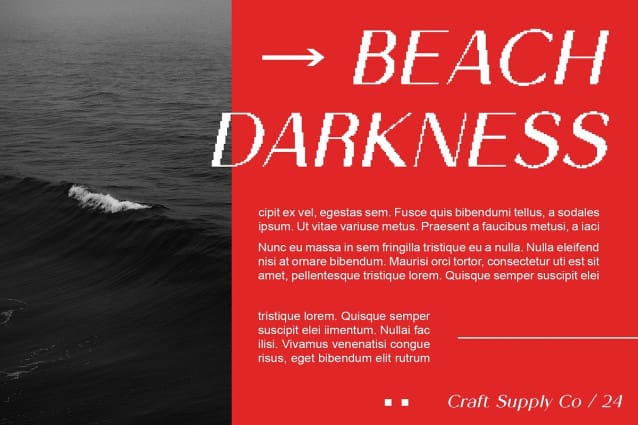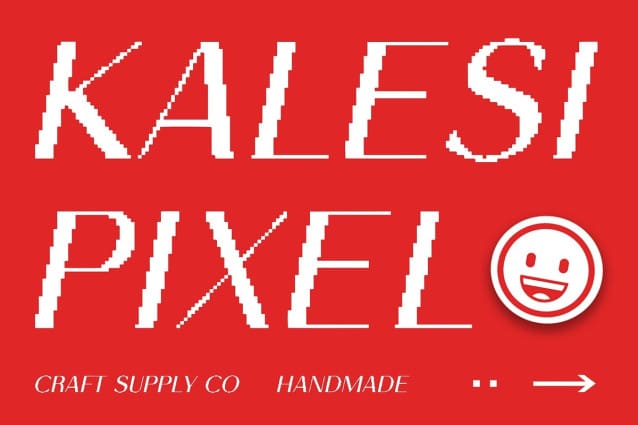
Kalesi Pixel Font
Kalesi Pixel Font is a modern sans-serif font that captures the essence of pixel aesthetics. Its crisp, clean lines combined with pixelated details give your designs a contemporary yet nostalgic feel, perfect for projects that demand attention.
Whether you’re designing a website, poster, or logo, Kalesi Pixel makes a statement. The font’s pixel vibes add a touch of playfulness to your designs, making them memorable and visually appealing.
Kalesi Pixel is tailored for display purposes, making it ideal for headlines, banners, and other attention-grabbing elements. Its modern, pixelated design ensures that your message stands out in a crowded digital space.
Despite its pixel-inspired details, this font remains highly readable. The font’s balanced design ensures that your text is clear and easy to comprehend, even at smaller sizes. Choose KalesiPixel to add a touch of modern nostalgia to your next design project.